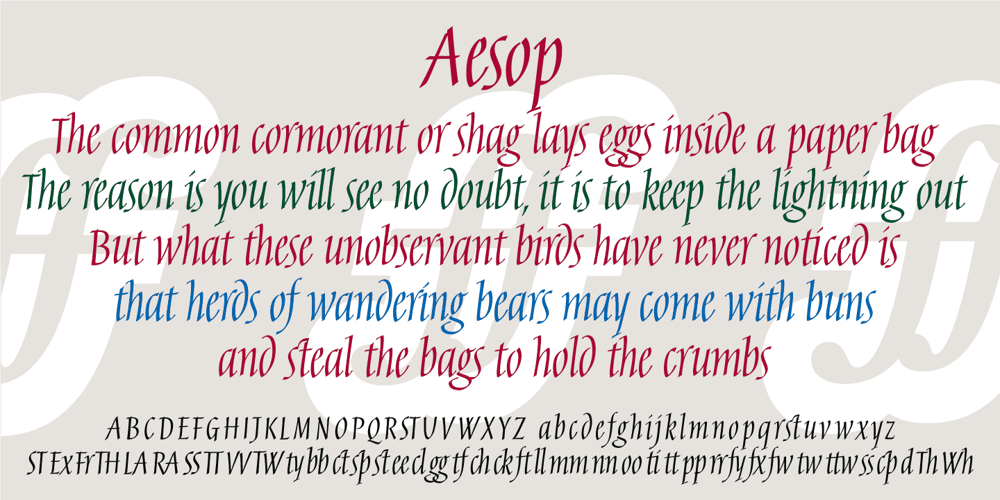
Aesop
Aesop font
Aesop Font Family was designed by Michael Harvey, Andy Benedek and published by Fine Fonts. Aesop contains 1 styles and family package options. Aesop was developed from some book jacket lettering drawn by Michael Harvey for an edition of Aesop’s Fables by a master Japanese Artist. It is based upon a pen-drawn script, and is characterised by a lively sense of movement and grace. Aesop Plus, being an OpenType font, contains many alternative characters and additional ligatures which can be automatically substituted to enhance the liveliness of set text, where the application in which it is used, permits.